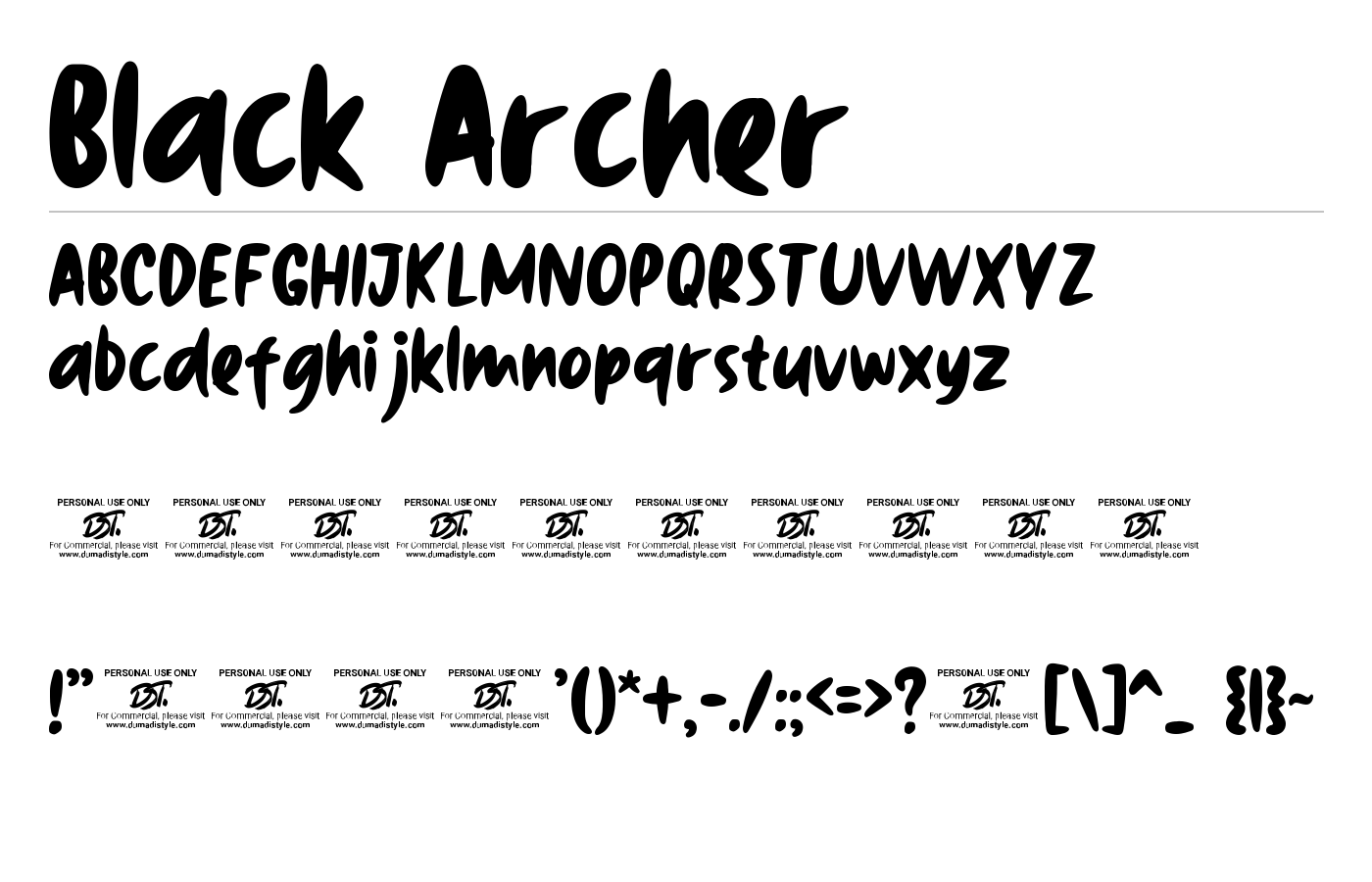
Black Archer is a bold, playful handwritten sans serif font with a lively, casual feel. Its thick, rounded strokes and slightly irregular shapes give it a friendly and approachable personality, making it perfect for creative projects, informal branding, and fun headlines. This font works well in designs that aim to be warm and engaging, such as packaging, posters, and social media graphics.
Black Archer Font
About Black Archer Font
| Font family | Black Archer Font |
| Designer | Toni Dzulham |